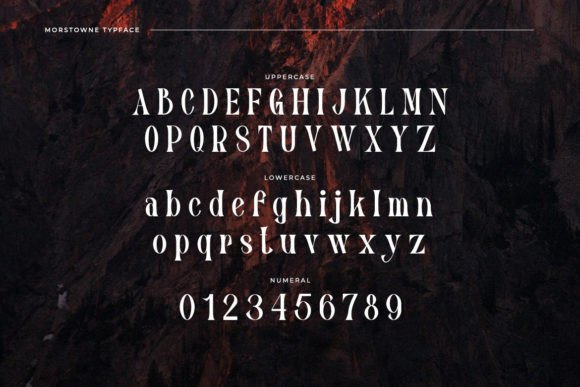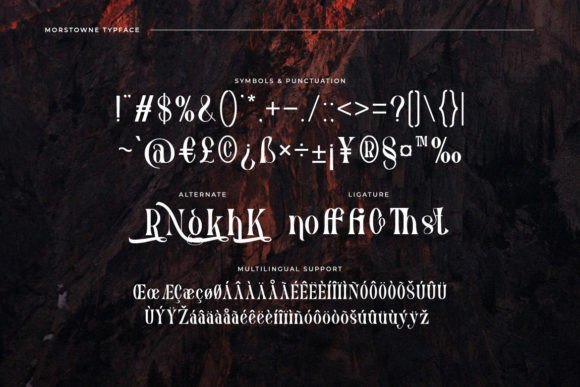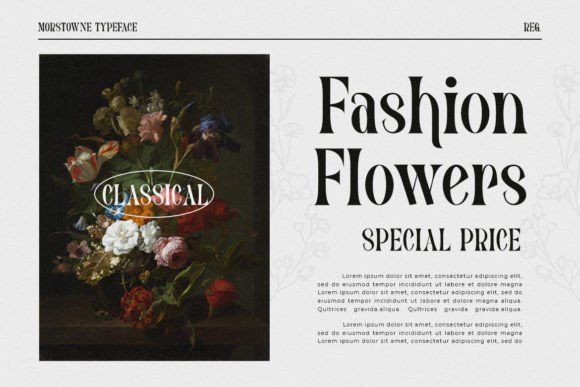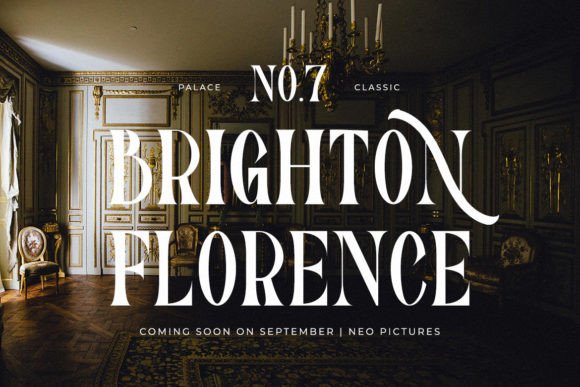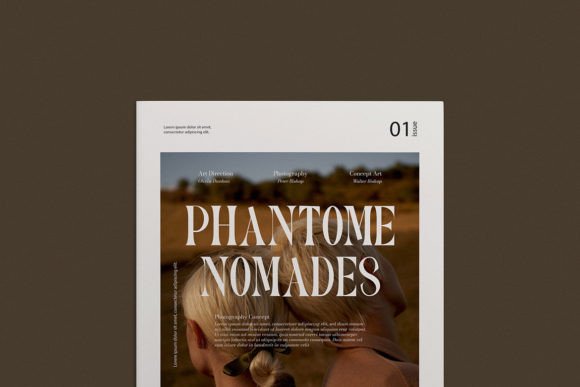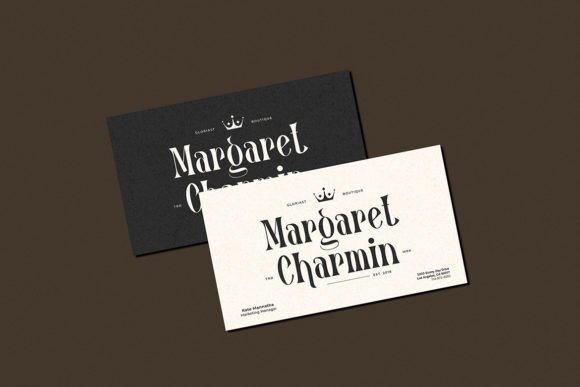
Introduction to Morstowne Font
Have you ever stared at a blank canvas, feeling the weight of a creative project on your shoulders? The cursor blinks, taunting you with its emptiness. But then, like a ray of sunshine, you stumble upon the perfect font. The one that elevates your design from mere mortal to masterpiece.
Enter the Morstowne Font, a condensed serif font that’s been making waves in the design community. With its sleek, high-quality aesthetic, it’s the perfect addition to any luxury logo, editorial design, or fashion promotional project. Whether you’re a seasoned designer or just starting out, Morstowne Font is a valuable resource that will help you bring your creative vision to life.
Key Features of Morstowne Font
- High-quality design resource ideal for creative projects, offering a unique and elegant aesthetic.
- Comes with a transparent background, making it easy to use in digital designs and allowing for seamless layering.
- Designed to work well at high resolutions, making it suitable for print and digital applications.
- Unique characteristics include subtle texture and intricate details, adding depth and visual interest to any design.
Honest Review: Morstowne Font
I recently had the chance to work with the Morstowne Font, and I must say it’s been a game-changer for my creative project. The font is a high-quality addition to any design resource, offering a unique and stylish aesthetic that’s sure to elevate any text-based element.
One of the standout features of the Morstowne Font is its versatility. I’ve used it for everything from headings and titles to body text and even logos. It’s a great choice for any design project, from print to digital.
- ✨ High-quality design that looks great in both light and dark environments
- ⚠️ Limited font sizes available, which can make it difficult to use in certain contexts
- ⚠️ Some users may find the font too ornate or decorative for certain design projects
Overall, I’m very impressed with the Morstowne Font. It’s a high-quality design resource that’s perfect for any creative project. While it may have some limitations, I believe the benefits far outweigh the drawbacks. I highly recommend giving it a try, especially if you’re looking for a unique and stylish font to add some flair to your designs.
Morstowne Font is a high-quality design resource ideal for creative projects. This versatile font features a transparent background, making it perfect for various design applications.
Tips for Getting the Most Out of Morstowne Font
For optimal results, experiment with different font sizes, colors, and combinations to create unique and eye-catching designs.
Morstowne Font is perfect for a variety of creative projects, including branding, marketing materials, and editorial content. Its versatility makes it an excellent addition to any design arsenal.
Is the Morstowne Font a high-quality design resource?
Yes, the Morstowne Font is a high-quality design resource that’s been carefully crafted to provide a unique and stylish look for your creative project. With its elegant lines and sophisticated feel, the Morstowne Font is perfect for designers who want to add a touch of sophistication to their designs. As a free download, it’s an excellent addition to any designer’s toolkit.